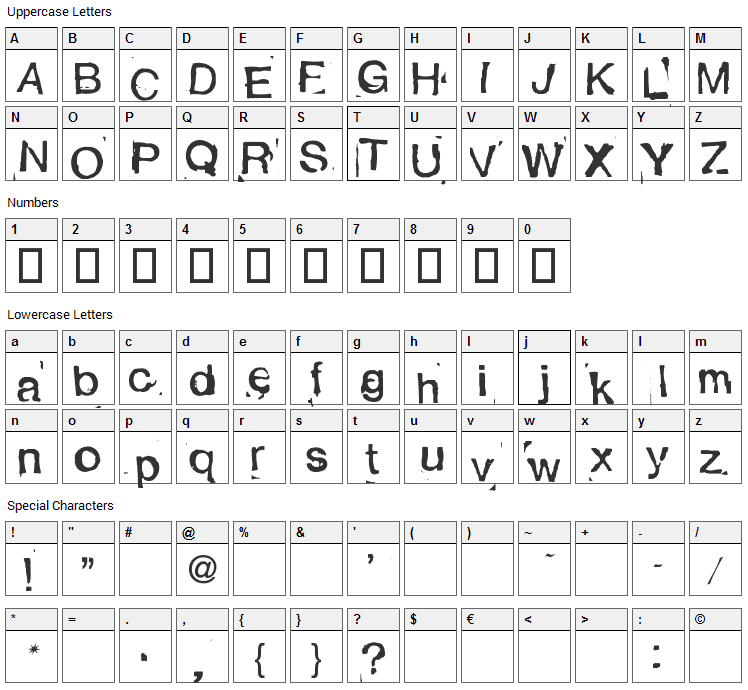
Alexandras Stempelkasten Font
Font Name:Alexandras Stempelkasten
Developer:anke-art
Category:Fancy > Destroy
Made of the stamps that one of my handicapped students uses for writing.